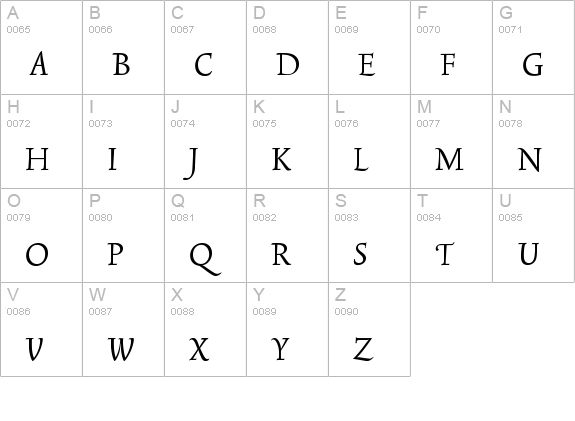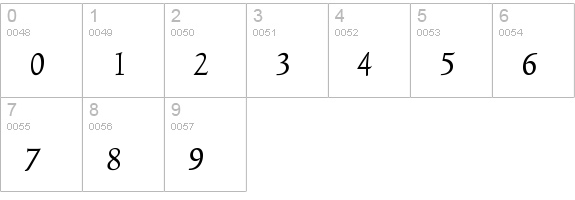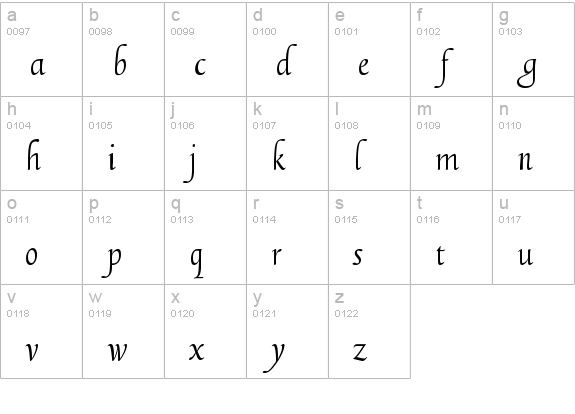
TriniteNo4-ItalicTab Font Details
TriniteNo4-ItalicTab font is a stylish and elegant typeface that will add a touch of sophistication to any design project. With its slanted and italicized characters, this font exudes a sense of modernity and creativity. The sleek and smooth lines of each letter create a visually pleasing aesthetic that is both eye-catching and professional. What sets TriniteNo4-ItalicTab font apart is its versatility. Whether used for headlines, body text, or even logos, this font adapts effortlessly to any context. Its legibility remains intact even at smaller sizes, making it a perfect choice for both print and digital media. One of the best features of TriniteNo4-ItalicTab font is that it is free to download. FontsMarket.com offers this font freely, allowing designers and creatives to access its beauty without any cost. This accessibility opens up a world of possibilities, enabling anyone to elevate their designs with the elegance and sophistication that TriniteNo4-ItalicTab font brings. So, whether you're working on a magazine layout, a website, or a branding project, TriniteNo4-ItalicTab font is here to add that extra flair. Its italicized and slanted style will captivate your audience and leave a lasting impression. Download this font for free at FontsMarket.com and take your design game to the next level.